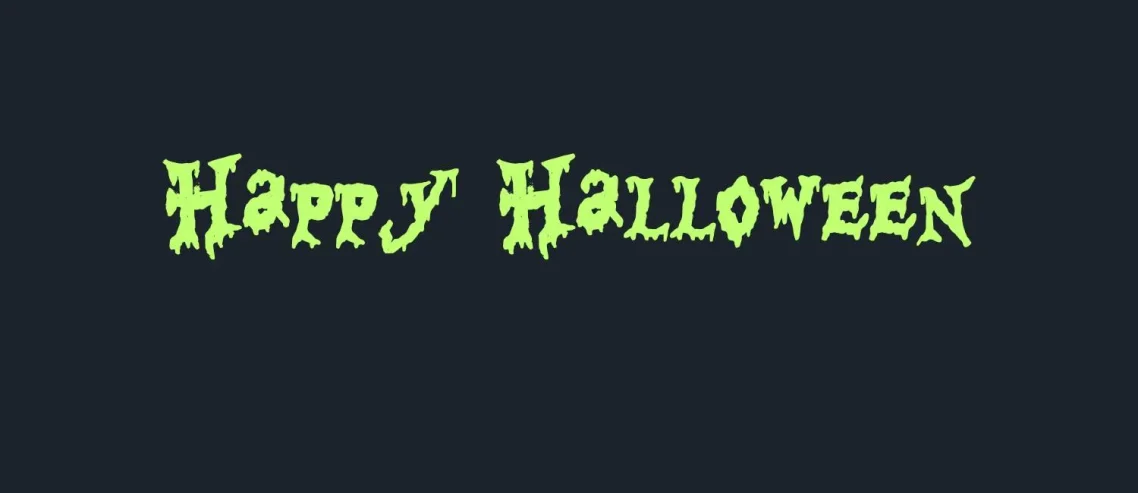
Happy Halloween Font is a unique typeface with spooky characters. This typeface lies under the fancy font family. Letterara Foundry created this great typeface with hard work and consistency.
You can merge this typeface with urw geometric font to inspire your project. This pair is a valuable resource to taste the greatest success. It is very useful for horror-theme-based parties, Halloween parties, and invitation cards.
Designer | Letterara Foundry |